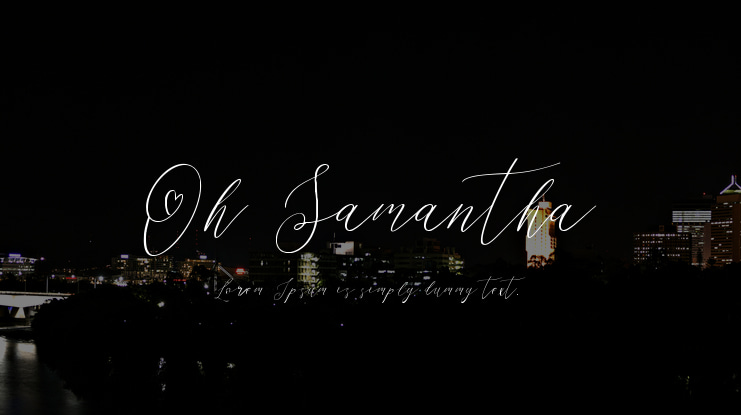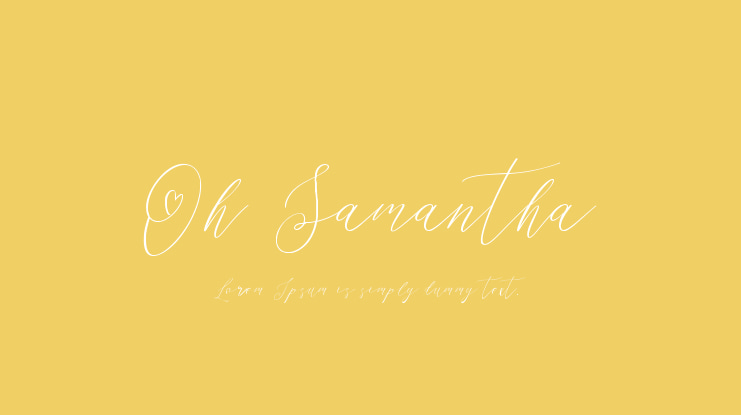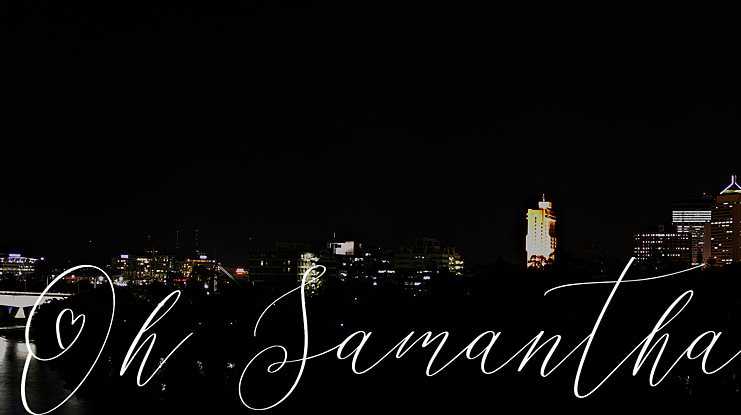
Oh Samantha Font
Oh, Samantha. A beautiful modern calligraphy font with seductive, feminine, and contemporary writing style. It would be a perfect mate for branding, logo, wedding things, greeting cards, fashion, and all those sweetest things on earth.